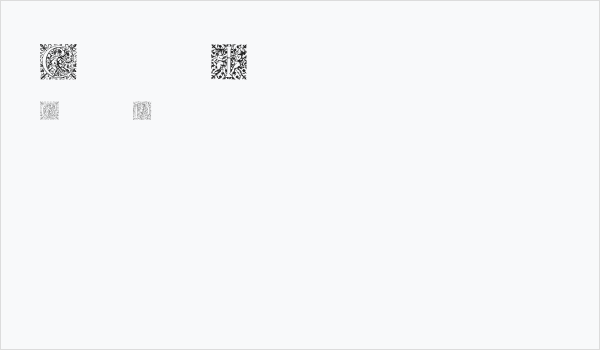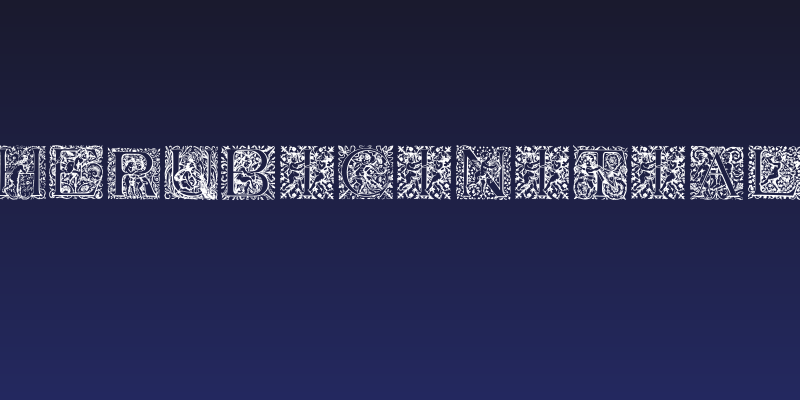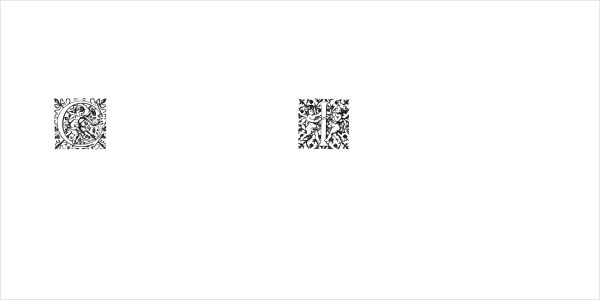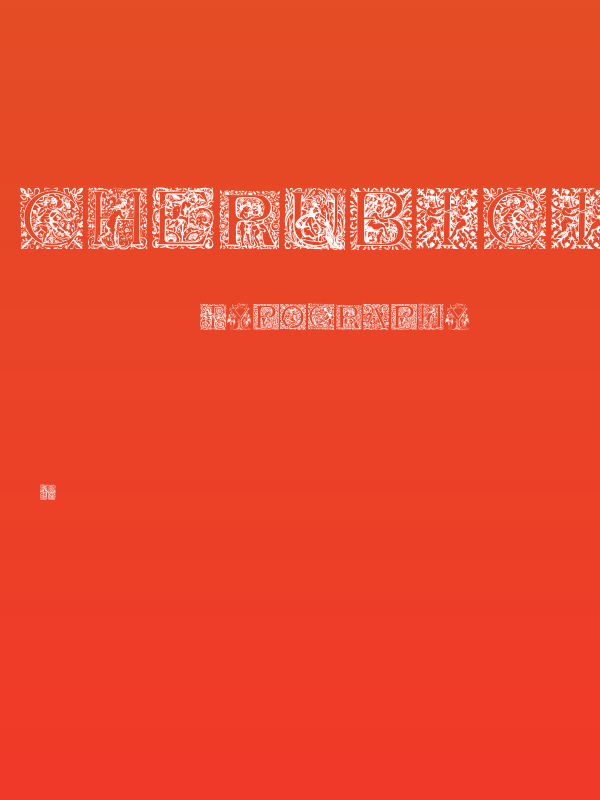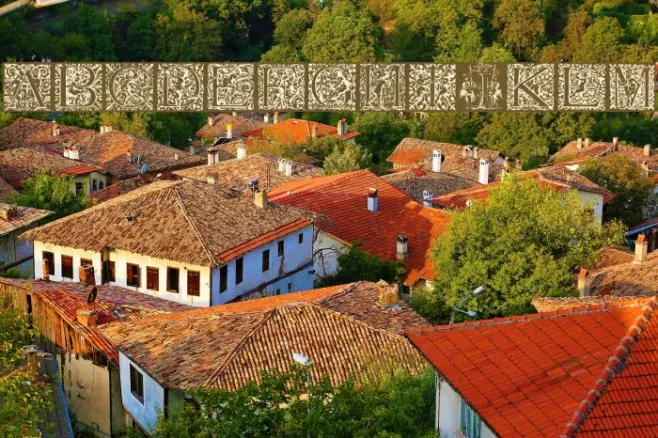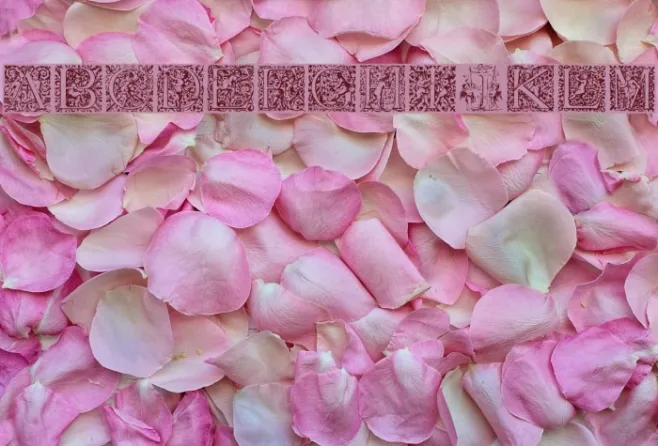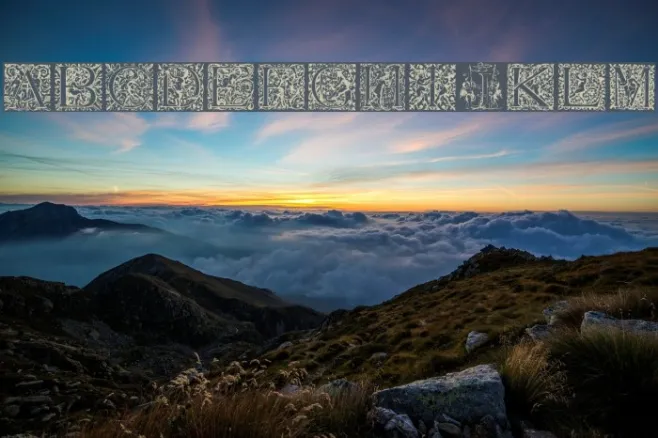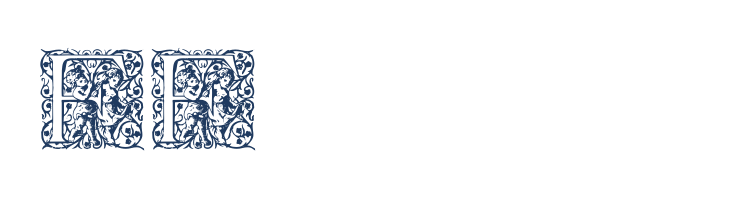
CherubicInitials Font
CherubicInitials Description
This font features ornate, decorative initials with intricate designs surrounding each letter. Each character is enclosed in a square frame filled with elaborate floral and cherubic motifs, giving it a highly decorative and vintage appearance. The letters themselves are bold and capitalized, standing out against the detailed backgrounds. The overall aesthetic is reminiscent of illuminated manuscripts or classical engravings, making it ideal for projects that require a touch of elegance and historical charm.
| Overall Style | Vintage |
| Proposed Projects | Ideal for wedding invitations, historical documents, book covers, or any project seeking a vintage and elegant touch. |